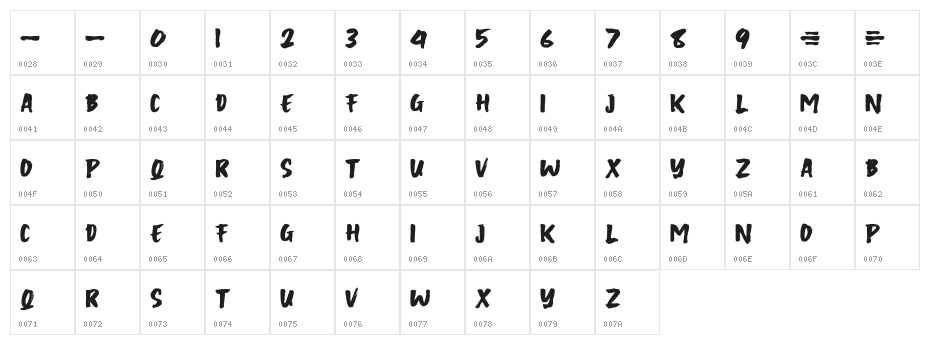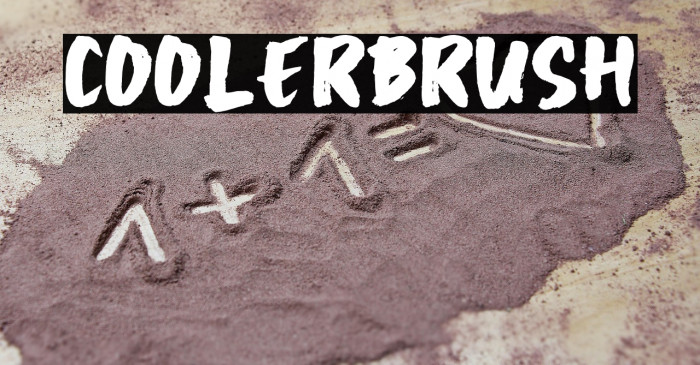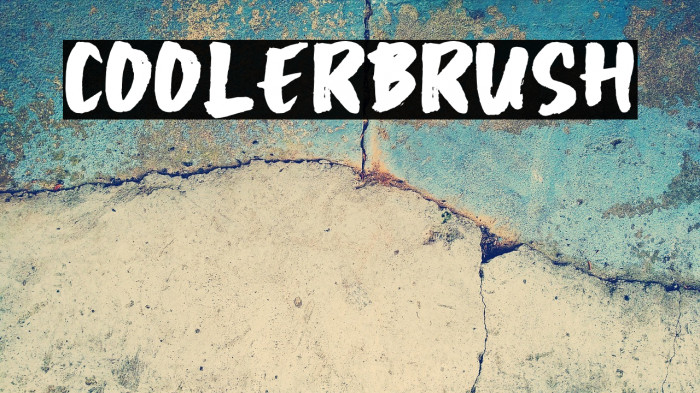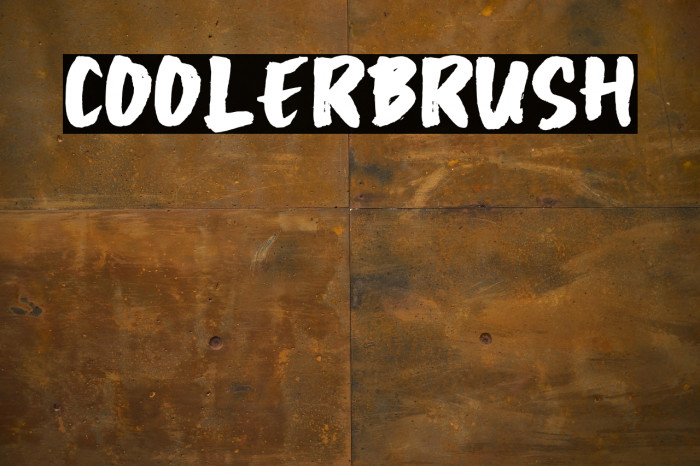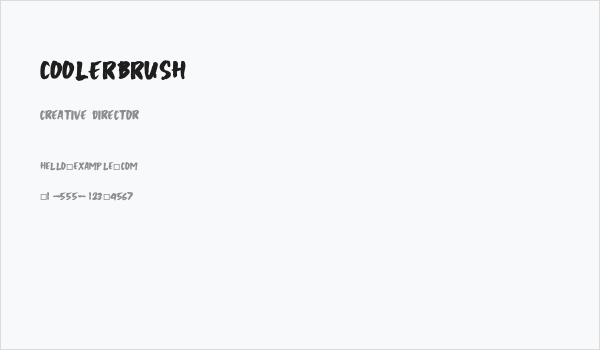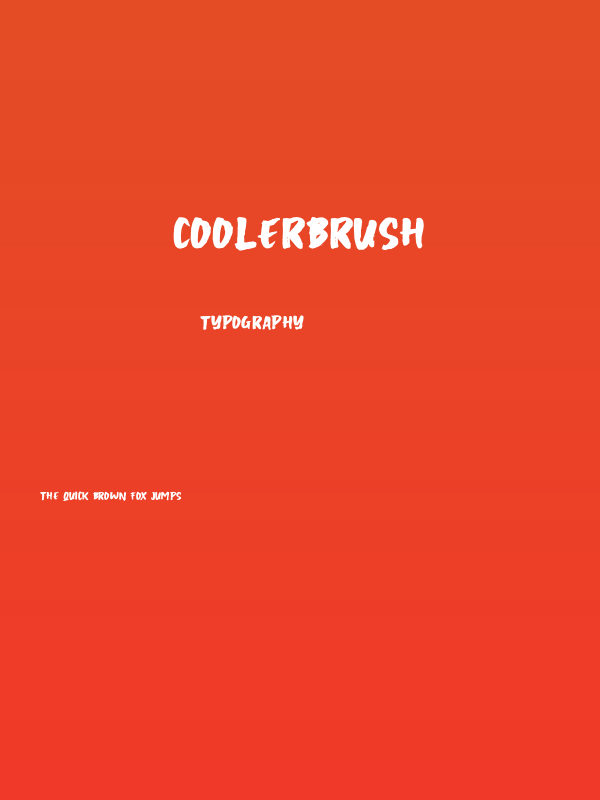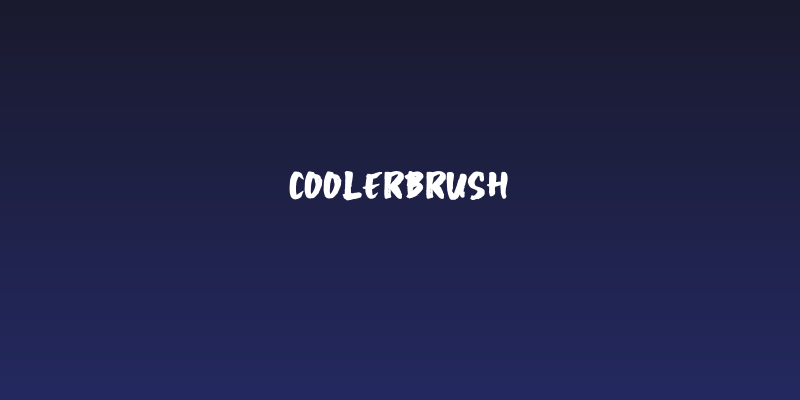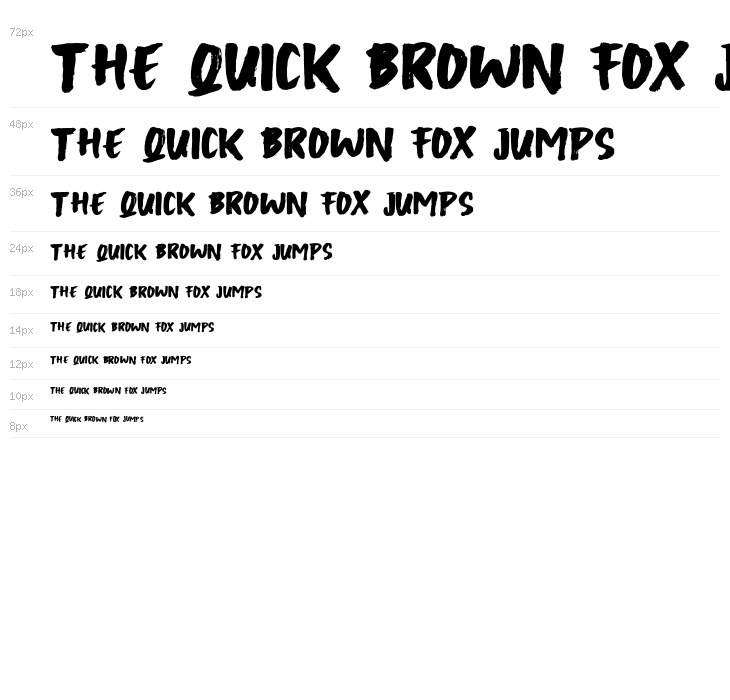
COOLERBRUSH Font
COOLERBRUSH Description
This font exudes a bold and dynamic brushstroke style, characterized by its thick, uneven lines that mimic the natural flow of hand-painted lettering. The uppercase and lowercase letters maintain a consistent, energetic rhythm, giving the font a lively and expressive appearance. The numbers and special characters follow the same aesthetic, ensuring a cohesive look across all text elements. This font's raw and artistic vibe makes it ideal for projects that require a personal touch or a creative flair.